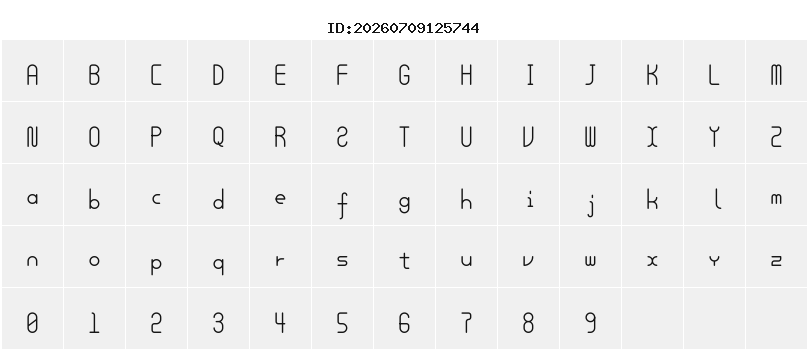
余繁新语-Medium Preview
About 余繁新语-Medium.ttf
余繁新语-Medium.ttf is a modern, elegant sans-serif font designed for ultimate readability and visual harmony. Perfect for branding, headlines, web design, and print materials.